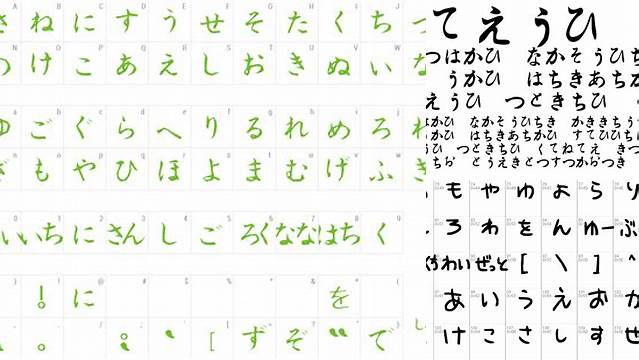
Hey guys! Ever wanted to write in Japanese Hiragana but didn't know where to find the right font? You've come to the right place! In this article, we're diving deep into the world of free Japanese Hiragana fonts. Whether you're a student, a designer, or just someone who loves Japanese culture, finding the perfect font can make your projects pop. Let's explore everything you need to know about Hiragana fonts and where to snag them for free.
What is Hiragana?
Before we jump into the fonts, let's quickly cover what Hiragana actually is. Hiragana is one of the three scripts used in the Japanese language, along with Katakana and Kanji. It's a phonetic script, meaning each character represents a specific sound. Think of it like the ABCs, but for Japanese! Hiragana is primarily used for native Japanese words and grammatical particles. Learning Hiragana is the first step in mastering written Japanese, and having the right fonts can make the process much more enjoyable.
Why Use Hiragana Fonts?
Using Hiragana fonts can add an authentic touch to your projects. Whether you're creating study materials, designing a website, or making graphics, the right font can make a huge difference. Plus, using a variety of fonts can help you understand the nuances of Japanese writing styles. So, why settle for basic when you can explore the beautiful world of Japanese Hiragana fonts?
1. Understanding Hiragana Character Sets
To truly appreciate and utilize free Japanese Hiragana fonts, it's crucial to understand the character sets. Hiragana consists of 46 basic characters, each representing a unique sound. These characters can be modified with diacritics (marks like dakuten and handakuten) to create additional sounds. For example, adding a dakuten (ă) to ă (ka) changes it to ă (ga). Understanding these variations is essential for selecting and using fonts correctly. When you're dealing with Hiragana character sets, you'll often encounter terms like Unicode, which ensures that all characters are displayed consistently across different platforms and devices. Make sure the font you choose supports Unicode to avoid any display issues. Additionally, some fonts may include stylistic variations or ligatures, which are special characters that combine two or more Hiragana characters for aesthetic purposes. Familiarizing yourself with these nuances will help you choose the perfect font for your project and ensure your Japanese text looks polished and professional. Choosing the right character set can greatly enhance the readability and visual appeal of your work.
4. Different Styles of Hiragana Fonts
Just like with any language, Hiragana fonts come in a variety of styles, each with its unique personality and purpose. Some fonts have a clean, modern look, perfect for professional documents or websites. Others have a more traditional, calligraphic style, ideal for adding an authentic Japanese feel to your designs. You'll find fonts that mimic handwritten Hiragana, which can be great for personal projects or invitations. There are also display fonts, which are designed to be eye-catching and are best used for headings and titles. Understanding these different styles will help you choose the right font for your specific needs. For instance, a sleek sans-serif Hiragana font might be suitable for a tech company's website, while a brushstroke-style font could be perfect for a cultural event poster. Exploring the various styles of Hiragana fonts allows you to add depth and character to your projects.
7. Using Hiragana Fonts in Microsoft Word
Using free Japanese Hiragana fonts in Microsoft Word is a great way to add an authentic touch to your documents. Once you've installed the font, open Word and start typing your text. To switch to a Hiragana font, simply select the text you want to change, click the font dropdown menu in the toolbar, and choose the Hiragana font you've installed. If you're typing directly in Japanese, you'll need to have a Japanese input method enabled on your computer. This allows you to type phonetically, and Word will automatically convert your input into Hiragana characters. Experiment with different font sizes and styles to achieve the desired look for your document. Using Hiragana fonts in Microsoft Word can elevate your writing and create visually appealing content.